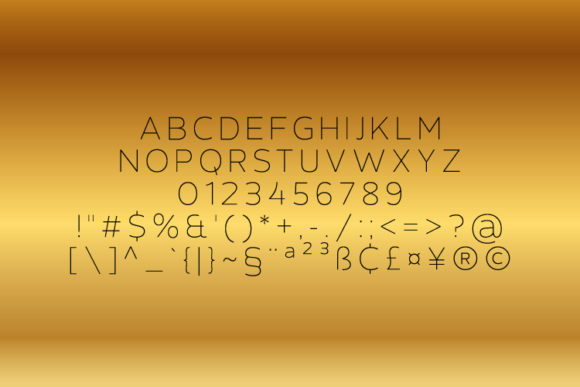
Introduction to Nuerthon Thin Font
As designers, we’ve all been there – staring at a blank canvas, trying to find the perfect font to bring our creative project to life. It’s a moment of truth, where the right choice can make all the difference between a mediocre design and a masterpiece. And that’s exactly what we’re excited to introduce you to – the Nuerthon Thin Font.
This high-quality sans serif font has taken the design world by storm, and for good reason. With its sleek, modern aesthetic and clean lines, it’s the perfect design resource for any project. Whether you’re working on a formal business logo or a fun, non-formal design, the Nuerthon Thin Font is sure to impress.
Key Features of Nuerthon Thin Font
- Features a transparent background for seamless integration
- Designed with a delicate, elegant aesthetic for a wide range of applications
- Unique characteristics include a refined, minimalist feel and subtle nuances in letterform design
Honest Review: Nuerthon Thin Font
One of the standout features of the Nuerthon Thin Font is its high quality, clean aesthetic. It’s perfect for creating a minimalist look that’s both elegant and sophisticated. I used it to create a logo for a client, and the result was stunning.
Here are some of the things that worked well for me:
- ✨ Clean lines and minimalist design
- ✨ Great for creating a transparent background
- ⚠️ Limited character set
- ⚠️ May not be suitable for body text
Overall, I’m really impressed with the Nuerthon Thin Font. It’s a great design resource that’s perfect for adding a touch of elegance to any project. While it may have a few limitations, it’s definitely worth checking out for any designers looking for a high-quality, free font download.
Tips for Getting the Most Out of Nuerthon Thin Font
For the best results, use the Nuerthon Thin Font on a transparent background to create a sleek and modern look. You can also pair it with other fonts to create a unique design. Experiment with different font sizes and colors to add depth to your design.
The Nuerthon Thin Font is perfect for creating high-quality designs for a variety of projects, including business cards, logos, and social media graphics. Its modern and sleek design makes it an excellent choice for creative projects that require a touch of elegance.